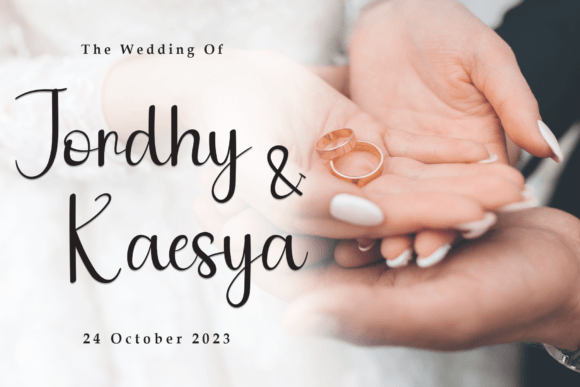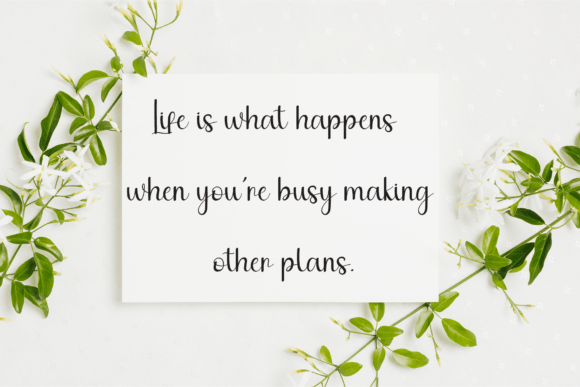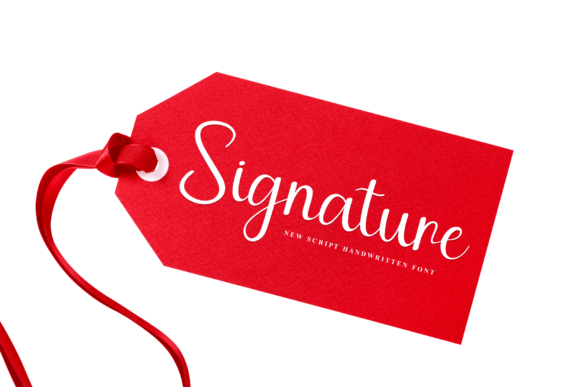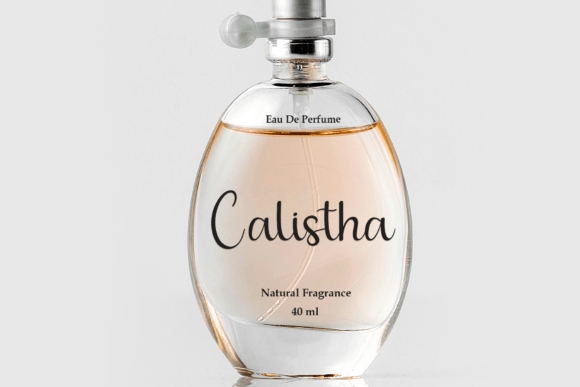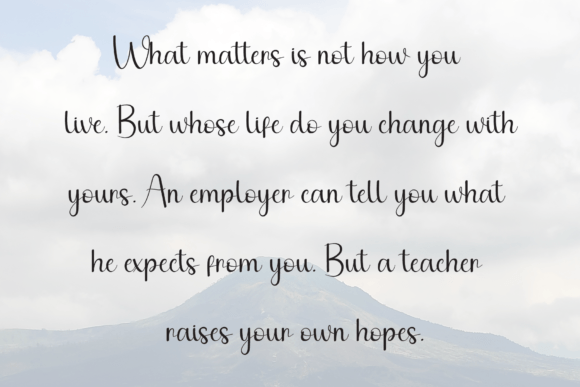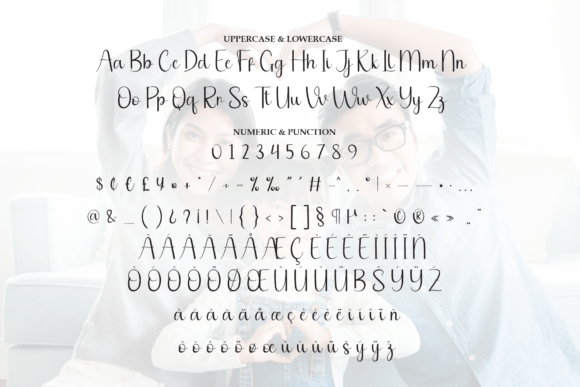
Introducing Family Font: The Sweet and Friendly Handwritten Display Font
Are you looking for a font that can add a touch of warmth and personality to your designs? Look no further than Family Font, a sweet and friendly handwritten display font that’s perfect for creating eye-catching wedding invitations, cards, and other designs that require a fun and playful touch.
What is Family Font?
Family Font is a beautifully crafted handwritten display font that’s designed to bring a sense of joy and whimsy to your designs. With its cute and fun lettering style, this font is ideal for designers and crafters who want to add a personal touch to their work. Whether you’re creating wedding invitations, greeting cards, or social media graphics, Family Font is the perfect choice.
Key Features of Family Font
- Handwritten style: Family Font features a beautiful handwritten style that’s perfect for creating personal and heartfelt designs.
- Cute and fun: This font is designed to be playful and fun, making it ideal for designs that require a lighthearted touch.
- Display font: Family Font is a display font, making it perfect for headlines, titles, and other prominent text elements.
- Easy to read: Despite its playful style, Family Font is easy to read, making it perfect for body text as well as headlines.
Uses for Family Font
Family Font is a versatile font that can be used for a wide range of design projects, including:
- Wedding invitations: Add a touch of romance and whimsy to your wedding invitations with Family Font.
- Greeting cards: Create fun and playful greeting cards for birthdays, holidays, and other special occasions.
- Social media graphics: Use Family Font to create eye-catching social media graphics that are sure to grab attention.
- Party decorations: Create custom party decorations, such as banners and signs, with Family Font.
Why Choose Family Font?
There are many fonts to choose from, but Family Font stands out for its unique combination of style and versatility. Here are just a few reasons why you should choose Family Font for your next design project:
- Unique style: Family Font has a unique and distinctive style that’s sure to set your designs apart.
- High-quality design: Family Font is designed to high standards, ensuring that your designs look professional and polished.
Tips for Using Family Font
Here are a few tips for getting the most out of Family Font:
- Use it sparingly: Family Font is a display font, so use it sparingly to add emphasis and interest to your designs.
- Pair it with other fonts: Experiment with pairing Family Font with other fonts to create interesting and dynamic typography.
- Experiment with colors: Family Font looks great in a wide range of colors, so don’t be afraid to experiment and find the perfect color for your design.
Family Font is a sweet and friendly handwritten display font that’s perfect for designers and crafters who want to add a touch of personality to their work. With its cute and fun lettering style, this font is ideal for creating eye-catching wedding invitations, cards, and other designs that require a fun and playful touch. Whether you’re a professional designer or a DIY crafter, Family Font is a great choice for any design project.